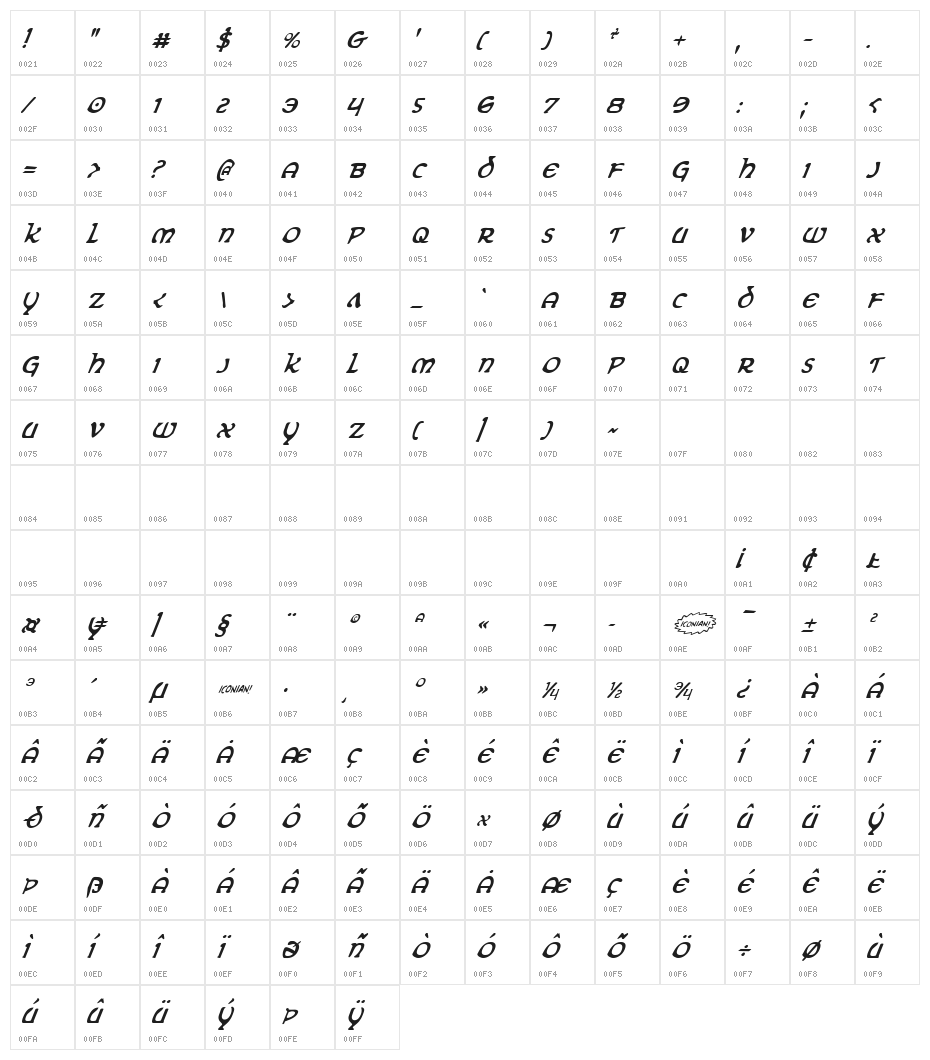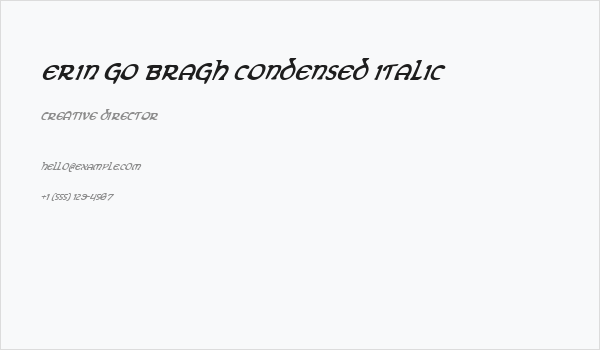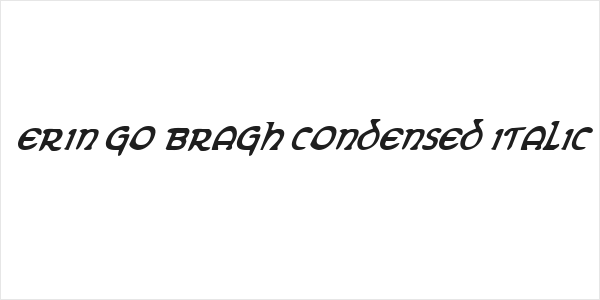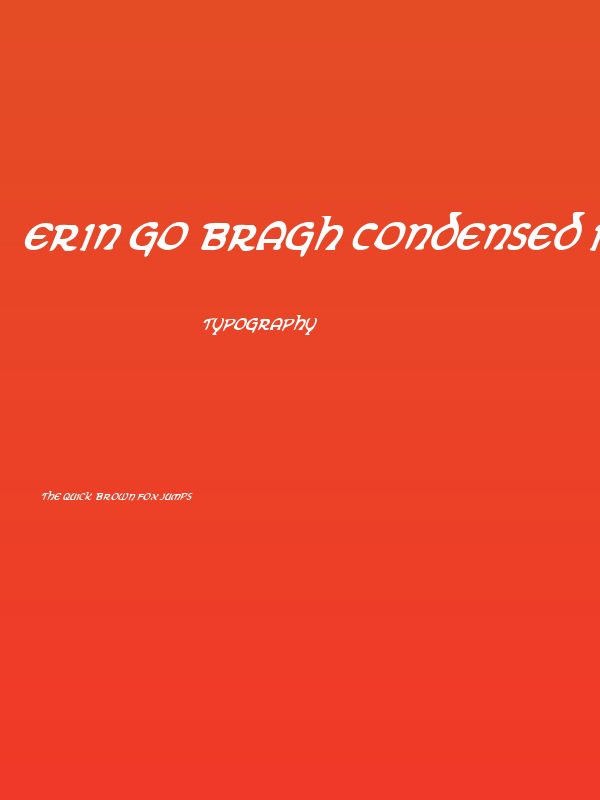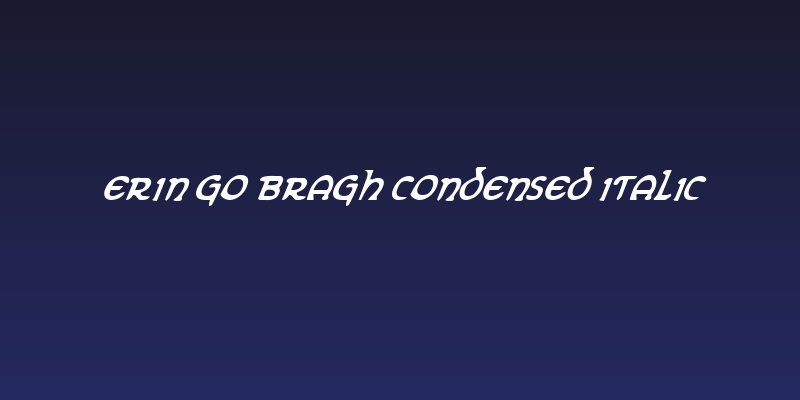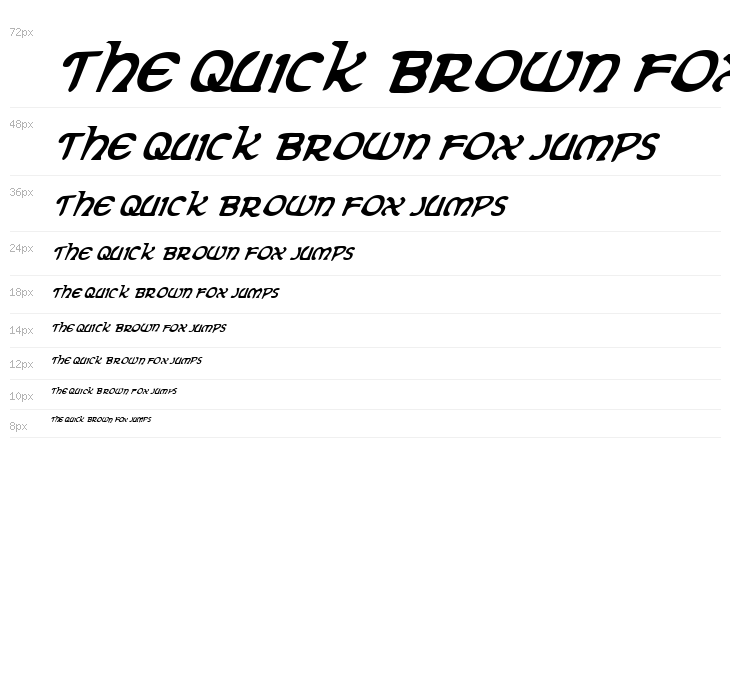
Erin Go Bragh Condensed Italic Font
Erin Go Bragh Condensed Italic Description
This font features a dynamic and flowing script style with a condensed form, giving it a unique and elegant appearance. The italicized letters add a sense of movement and grace, making it suitable for creative and artistic projects. The characters are well-defined with a moderate stroke contrast, enhancing readability while maintaining a decorative flair. The overall design is reminiscent of traditional calligraphy, yet it carries a modern twist that makes it versatile for various applications. Its condensed width allows for efficient use of space, making it ideal for headlines and titles where space is limited.
| Use Case | Headlines, Logos, Artistic projects |
| Proposed Projects | Ideal for wedding invitations, greeting cards, logo design, and artistic posters. |